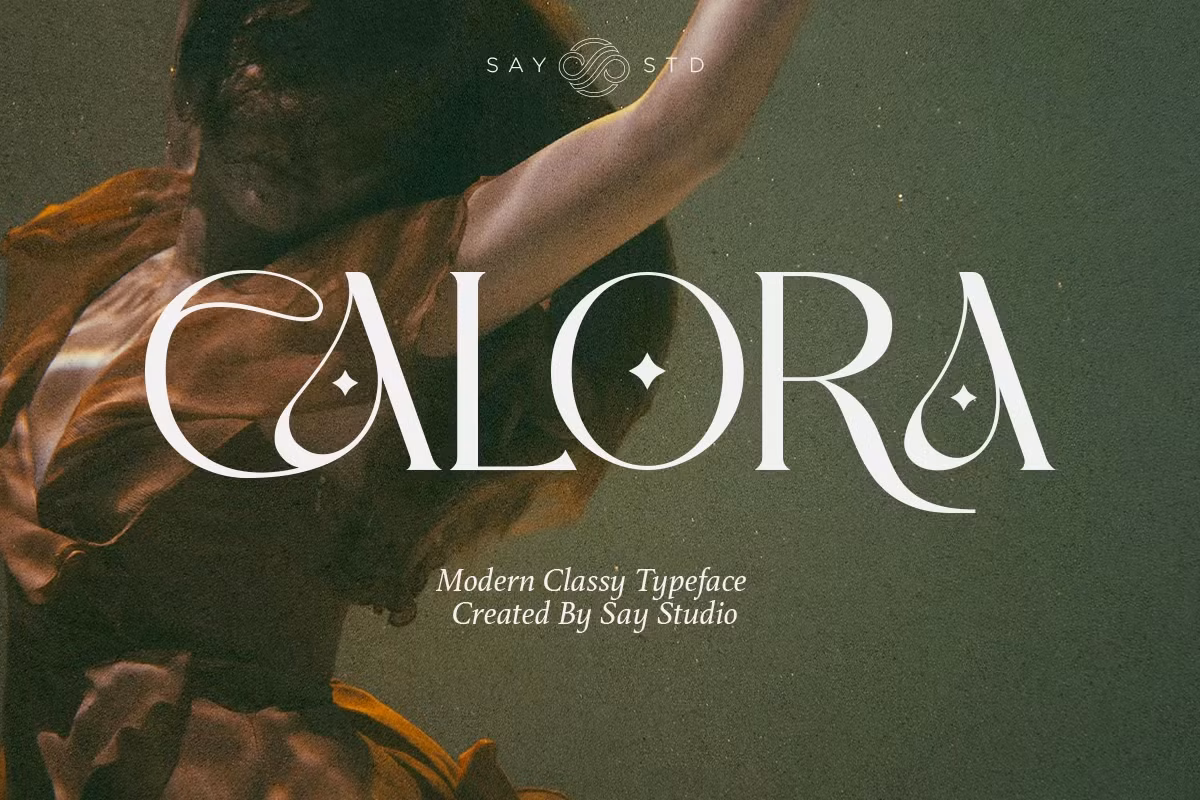
Calora Font Free Download is a classy and sophisticated typeface crafted specifically for elegant branding. With its stylish curves, refined serifs, and timeless proportions, Calora is perfect for luxury logos, fashion labels, wedding invitations, beauty packaging, and upscale editorial designs.
This font combines traditional charm with modern grace, delivering a premium look that stands out without being overly flashy. It includes uppercase and lowercase letters, numerals, punctuation, and stylish ligatures—giving you full control over your creative expression.
Whether you're developing a high-end brand identity or designing a polished magazine spread, Calora Font Free Download offers the versatility and elegance needed to make a lasting impression. Test it out in personal projects, and be sure to purchase the correct license for any commercial use. Elevate your typography with the refined beauty of this classy branding font.